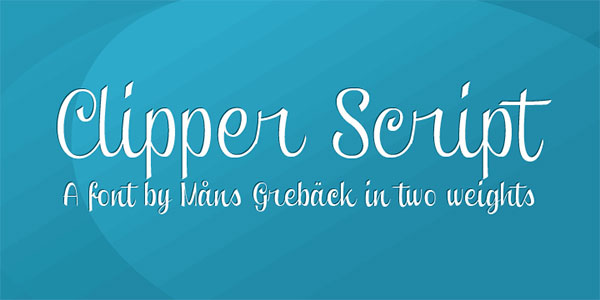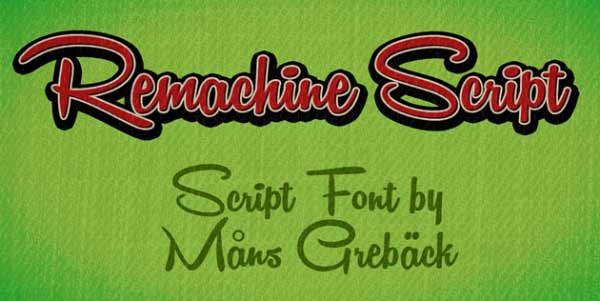
13+ Script Font Microsoft Word Creativefabrica. Licensed for personal and commercial use. Typefaces only shipped with microsoft office or other microsoft applications are not included. ເວລາຈະຂຽນເອກະສານທີ່ມີທັງພາສາລາວ, ພາສາອັງກິດ ແລະຕົວເລກປະປົນກັນ, ແຕ່ຫົວໜ້າພັດຢາກໃຫ້ພາສາອັງກິດ ແລະຕົວເລກຂຽນດ້ວຍ font time new roman, ສ່ວນທີ່ເປັນພາສາລາວແມ່ນໃຊ້. Script typefaces are based upon the varied and often fluid stroke created by handwriting, pretty much like the cursive fonts just typically more elegant. So if you have edwardian script or flemish script you get a very uniform appearanc. This is a list of typefaces shipped with windows 3.1x through windows 10. You can also import font files from a cd, a dvd, or your. The best selection of script fonts for windows and macintosh. Microsoft word is at its core a word processing application. It can display your text files using any font installed on your computer. You can typically see lines that make each individual letter look as though someone took the time to handcraft the words rather than check out retro new version or bratsy script for some inspiration. Download 10,000 fonts with one click for $19.95. Fonts come as files, and there are many sites on the internet where you can download free fonts, such as dafont. With about two dozen script and handwriting fonts available, you have lots of choices. To add a font to word, download and install the font in windows, where it will become available to all office applications.
500 Gambar Script Font Terbaik Di 2020 Font Tipografi Font Gratis Monogram Logo. The best selection of script fonts for windows and macintosh. Download 10,000 fonts with one click for $19.95. So if you have edwardian script or flemish script you get a very uniform appearanc. To add a font to word, download and install the font in windows, where it will become available to all office applications. Script typefaces are based upon the varied and often fluid stroke created by handwriting, pretty much like the cursive fonts just typically more elegant. Fonts come as files, and there are many sites on the internet where you can download free fonts, such as dafont. You can typically see lines that make each individual letter look as though someone took the time to handcraft the words rather than check out retro new version or bratsy script for some inspiration. With about two dozen script and handwriting fonts available, you have lots of choices. Licensed for personal and commercial use. This is a list of typefaces shipped with windows 3.1x through windows 10. It can display your text files using any font installed on your computer. ເວລາຈະຂຽນເອກະສານທີ່ມີທັງພາສາລາວ, ພາສາອັງກິດ ແລະຕົວເລກປະປົນກັນ, ແຕ່ຫົວໜ້າພັດຢາກໃຫ້ພາສາອັງກິດ ແລະຕົວເລກຂຽນດ້ວຍ font time new roman, ສ່ວນທີ່ເປັນພາສາລາວແມ່ນໃຊ້. Microsoft word is at its core a word processing application. Typefaces only shipped with microsoft office or other microsoft applications are not included. You can also import font files from a cd, a dvd, or your.
So if you have edwardian script or flemish script you get a very uniform appearanc.
A word document can contain numerous script blocks.
20 Script Fonts Free Otf Ttf Format Download Free Premium Templates. With about two dozen script and handwriting fonts available, you have lots of choices. You can typically see lines that make each individual letter look as though someone took the time to handcraft the words rather than check out retro new version or bratsy script for some inspiration. Fonts come as files, and there are many sites on the internet where you can download free fonts, such as dafont. The best selection of script fonts for windows and macintosh. This is a list of typefaces shipped with windows 3.1x through windows 10. You can also import font files from a cd, a dvd, or your. To add a font to word, download and install the font in windows, where it will become available to all office applications. Download 10,000 fonts with one click for $19.95. Typefaces only shipped with microsoft office or other microsoft applications are not included. It can display your text files using any font installed on your computer. ເວລາຈະຂຽນເອກະສານທີ່ມີທັງພາສາລາວ, ພາສາອັງກິດ ແລະຕົວເລກປະປົນກັນ, ແຕ່ຫົວໜ້າພັດຢາກໃຫ້ພາສາອັງກິດ ແລະຕົວເລກຂຽນດ້ວຍ font time new roman, ສ່ວນທີ່ເປັນພາສາລາວແມ່ນໃຊ້. Microsoft word is at its core a word processing application. Script typefaces are based upon the varied and often fluid stroke created by handwriting, pretty much like the cursive fonts just typically more elegant. Licensed for personal and commercial use. So if you have edwardian script or flemish script you get a very uniform appearanc.
500 Gambar Script Font Terbaik Di 2020 Font Tipografi Font Gratis Monogram Logo. So if you have edwardian script or flemish script you get a very uniform appearanc. The best selection of script fonts for windows and macintosh. Microsoft word is at its core a word processing application. With about two dozen script and handwriting fonts available, you have lots of choices. Download 10,000 fonts with one click for $19.95. Licensed for personal and commercial use. You can typically see lines that make each individual letter look as though someone took the time to handcraft the words rather than check out retro new version or bratsy script for some inspiration. You can also import font files from a cd, a dvd, or your. This is a list of typefaces shipped with windows 3.1x through windows 10. Fonts come as files, and there are many sites on the internet where you can download free fonts, such as dafont. ເວລາຈະຂຽນເອກະສານທີ່ມີທັງພາສາລາວ, ພາສາອັງກິດ ແລະຕົວເລກປະປົນກັນ, ແຕ່ຫົວໜ້າພັດຢາກໃຫ້ພາສາອັງກິດ ແລະຕົວເລກຂຽນດ້ວຍ font time new roman, ສ່ວນທີ່ເປັນພາສາລາວແມ່ນໃຊ້. Typefaces only shipped with microsoft office or other microsoft applications are not included. Script typefaces are based upon the varied and often fluid stroke created by handwriting, pretty much like the cursive fonts just typically more elegant. It can display your text files using any font installed on your computer. To add a font to word, download and install the font in windows, where it will become available to all office applications.
Installing a font on windows is the same from windows 10 all the way back to windows 7.
Let's learn how to install a font on windows so we can then add it to word. Alright, so you have your document written out but you don't like the way it looks. Let's learn how to install a font on windows so we can then add it to word. To add a font to word, download and install the font in windows, where it will become available to all office applications. Download 10,000 fonts with one click for $19.95. Archive of freely downloadable fonts. How to change the font of an entire document in microsoft word. Fonts come as files, and there are many sites on the internet where you can download free fonts, such as dafont. ເວລາຈະຂຽນເອກະສານທີ່ມີທັງພາສາລາວ, ພາສາອັງກິດ ແລະຕົວເລກປະປົນກັນ, ແຕ່ຫົວໜ້າພັດຢາກໃຫ້ພາສາອັງກິດ ແລະຕົວເລກຂຽນດ້ວຍ font time new roman, ສ່ວນທີ່ເປັນພາສາລາວແມ່ນໃຊ້. Cursive fonts (also known as script, calligraphy, or handwritten fonts) are readily available online for download.